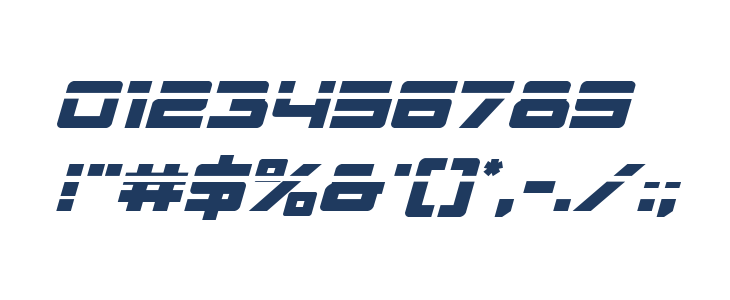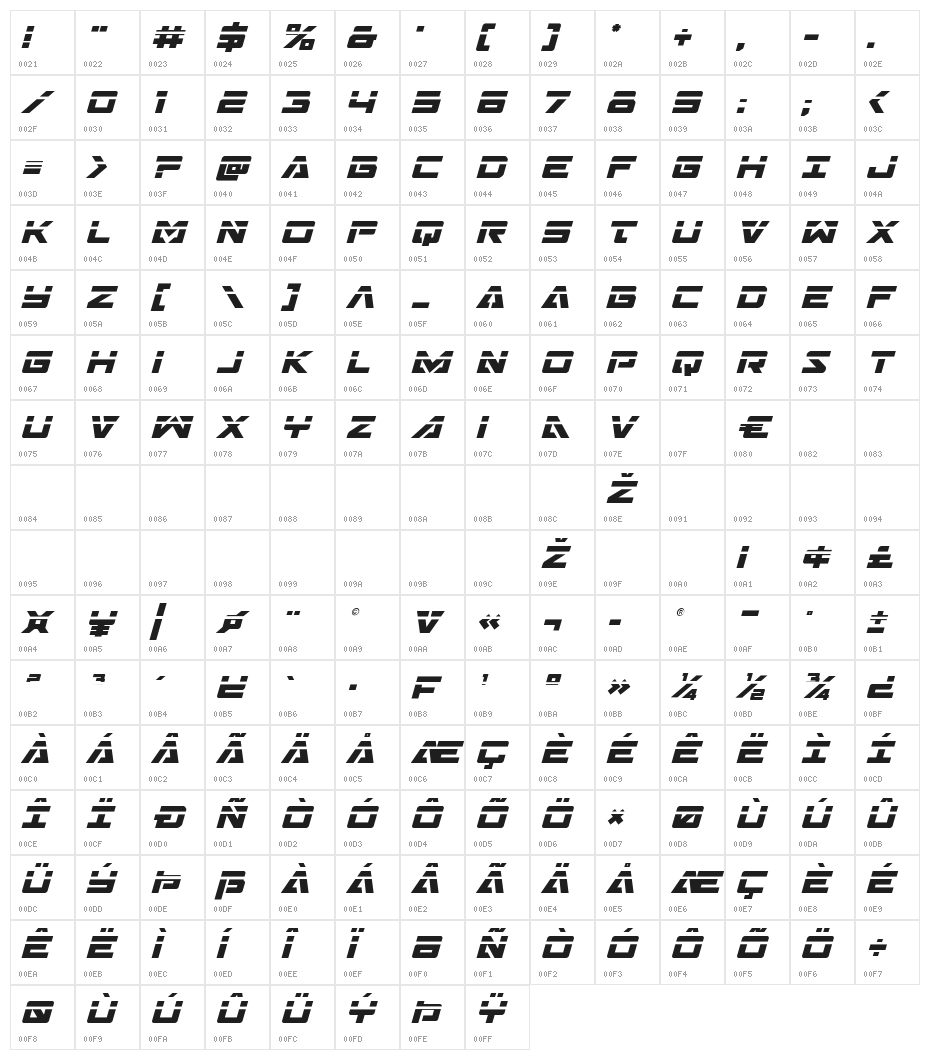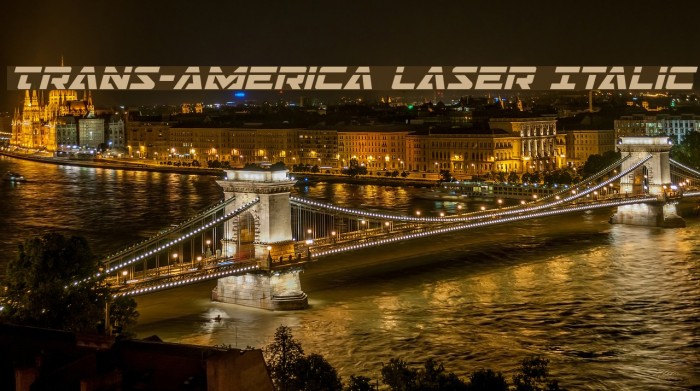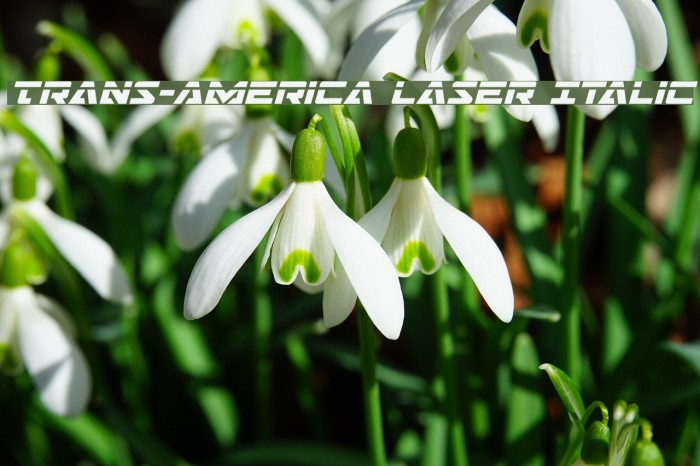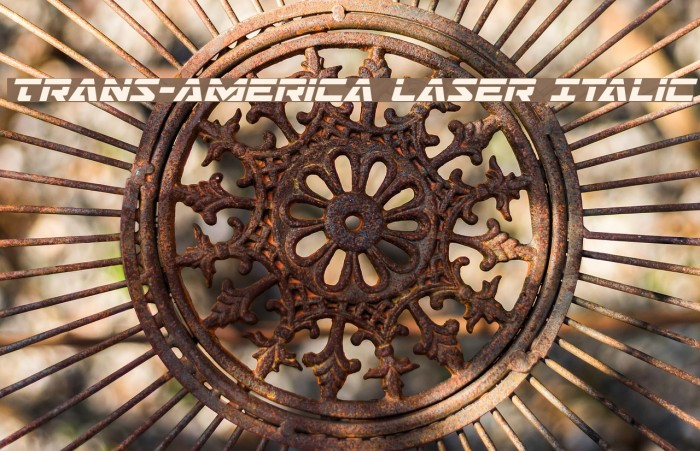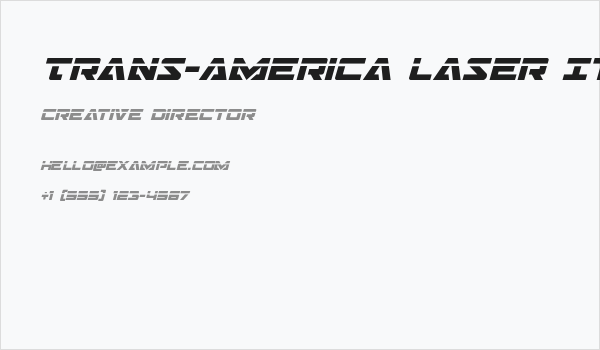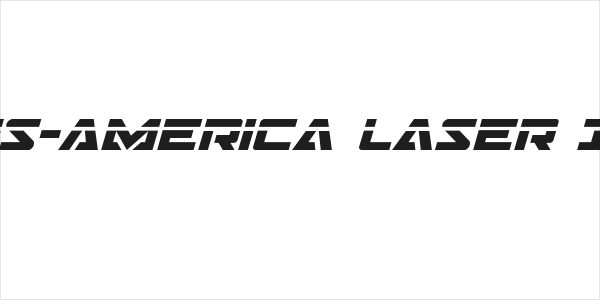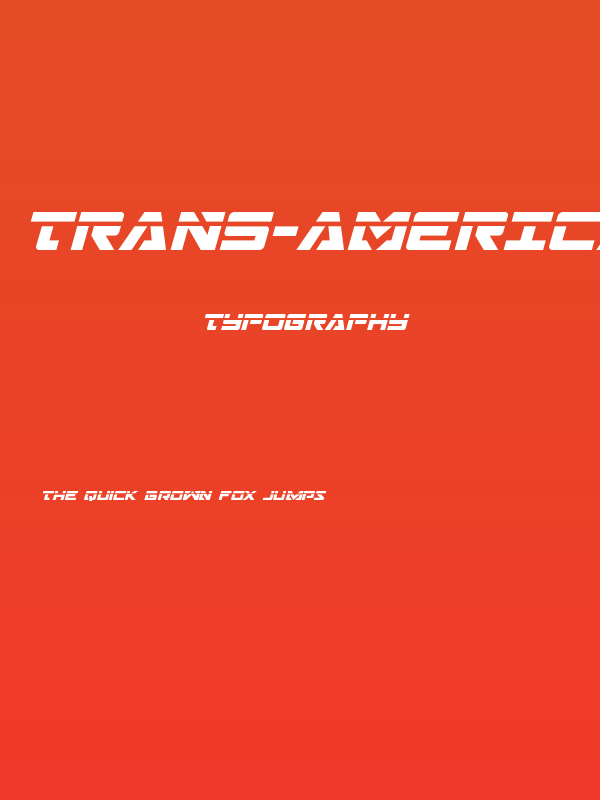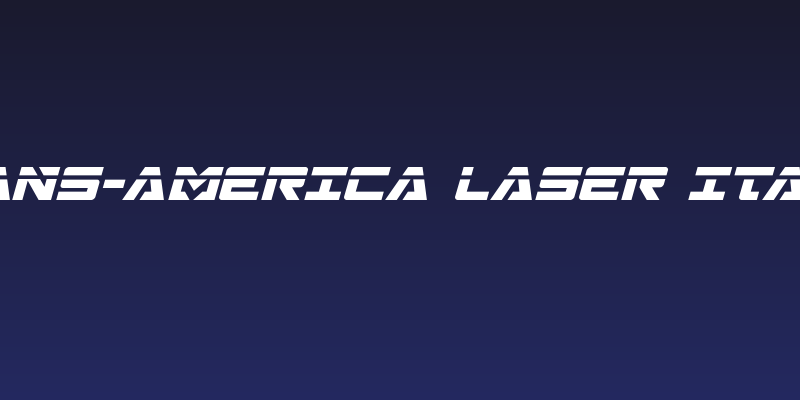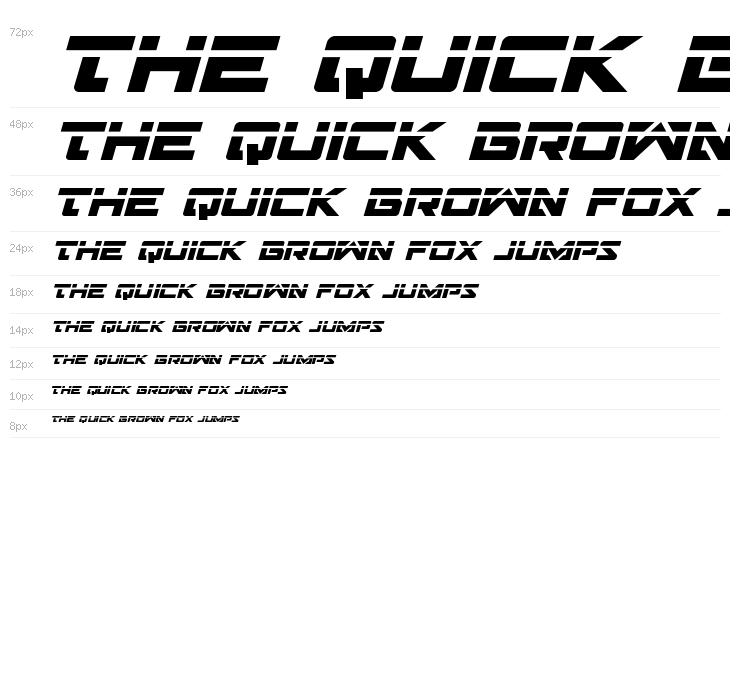
Trans-America Laser Italic Font
Trans-America Laser Italic Description
This font features a futuristic and dynamic design, characterized by its sharp angles and italicized form. The letters are bold and convey a sense of speed and modernity, making it ideal for projects that require a strong visual impact. The uppercase and lowercase letters maintain a consistent style, with a slight slant that enhances the forward-moving appearance. The numerals and special characters are designed to match the angular and sleek aesthetic, ensuring uniformity across all elements. The overall look is reminiscent of digital or technological themes, suitable for contemporary and innovative designs.
| Proposed Projects | Ideal for technology branding, sci-fi posters, video game titles, and modern advertising. |